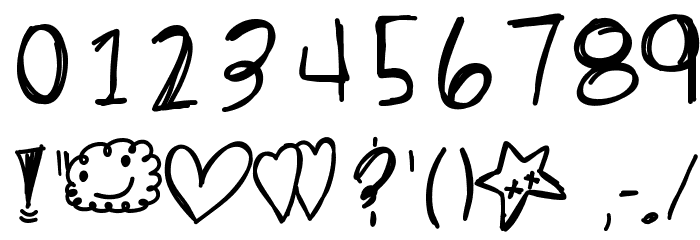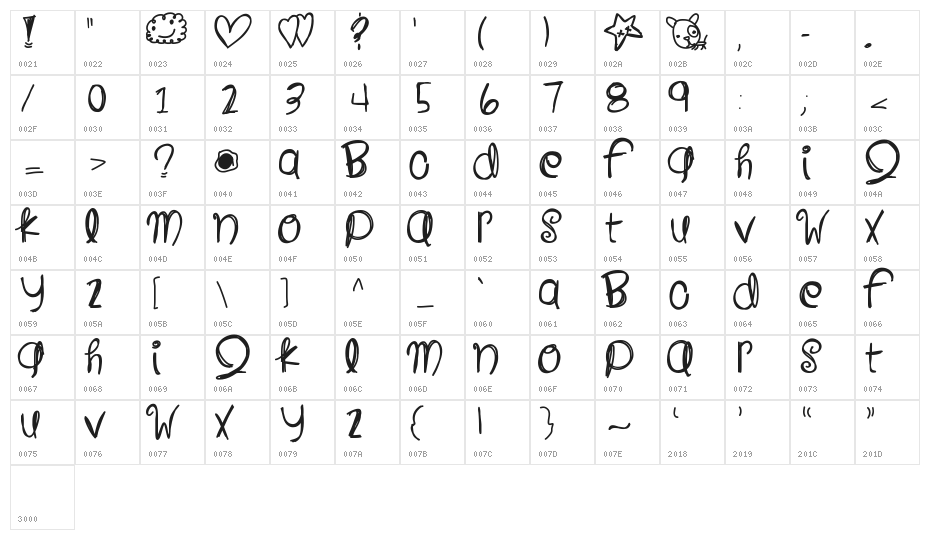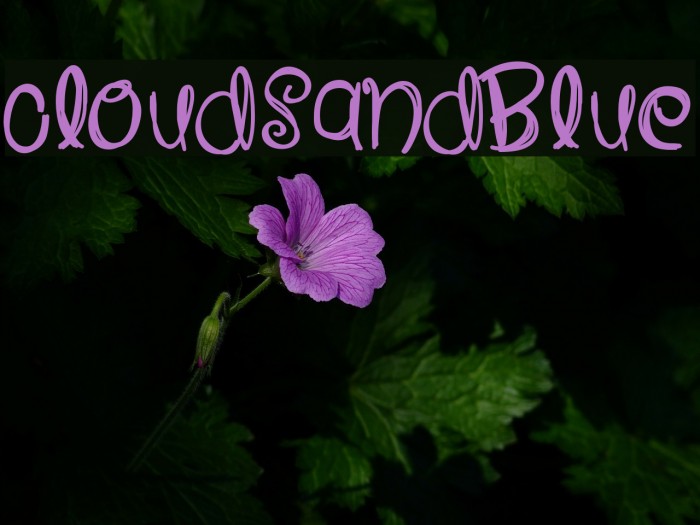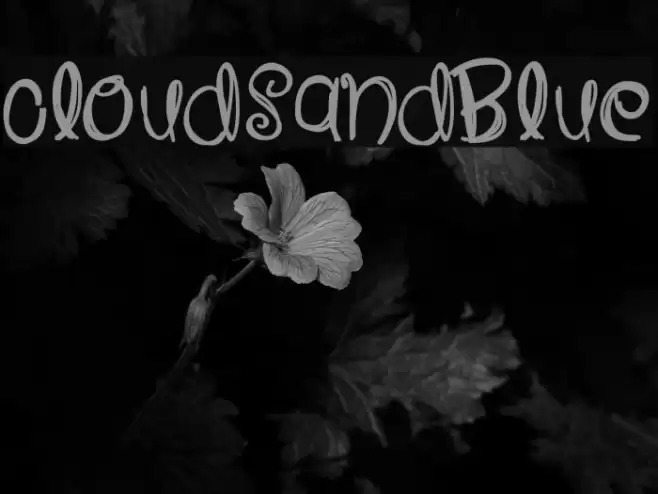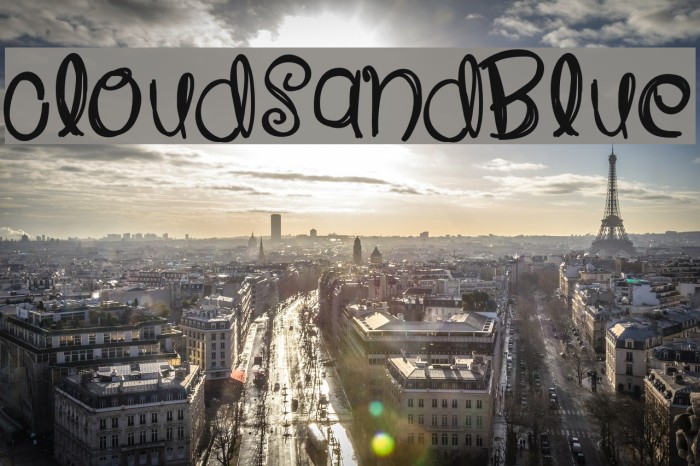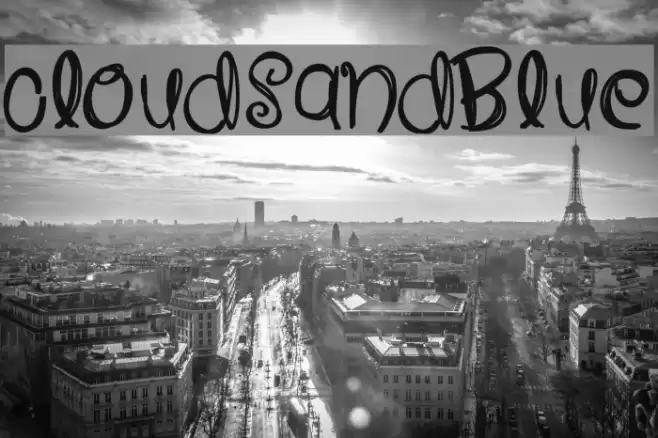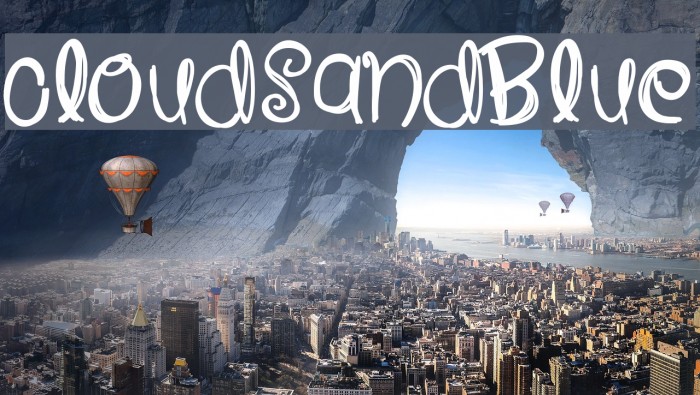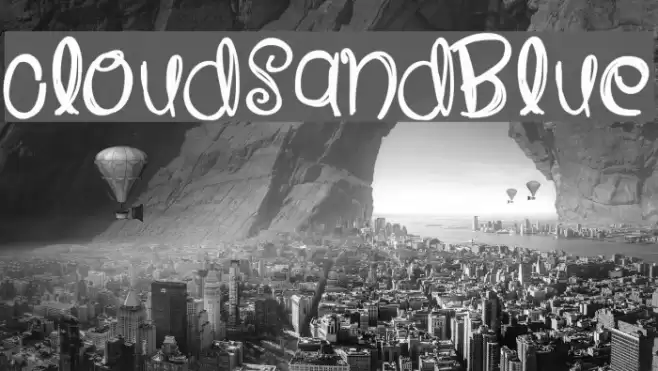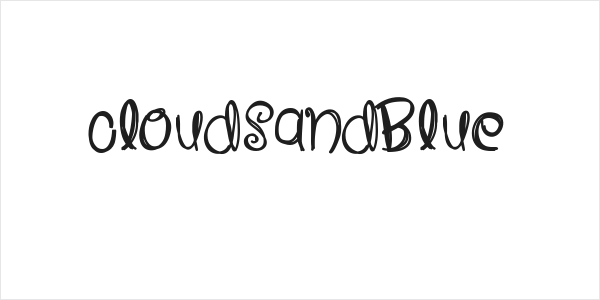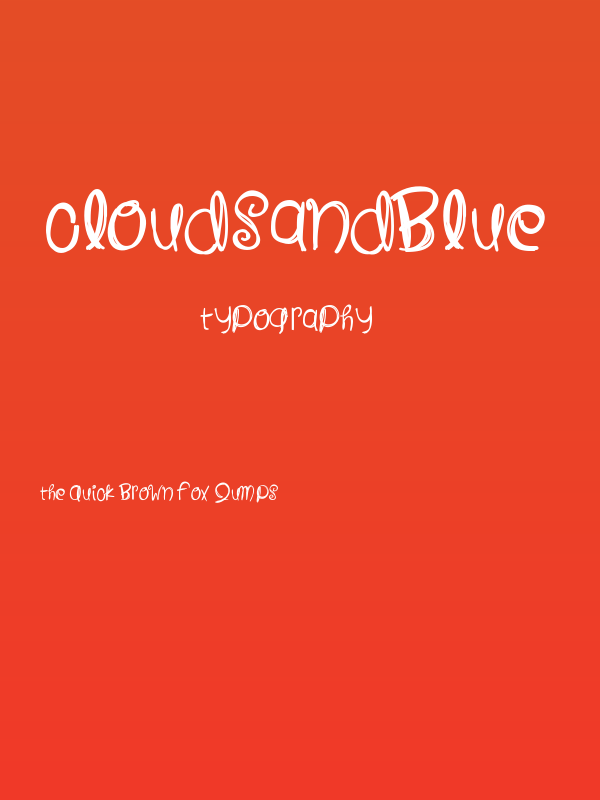
CloudsAndBlue Font
CloudsAndBlue Description
This playful and whimsical font features a handwritten style with a lively and energetic appearance. The characters are crafted with irregular strokes, giving them a casual and informal feel. The uppercase and lowercase letters are distinct yet harmonious, with a consistent flow that adds to the font's charm. The numbers and special characters maintain the same playful aesthetic, making them suitable for creative and fun projects. The font's unique style is perfect for designs that require a personal touch or a sense of spontaneity.
Proposed ProjectsIdeal for children's books, greeting cards, playful branding, and creative posters.